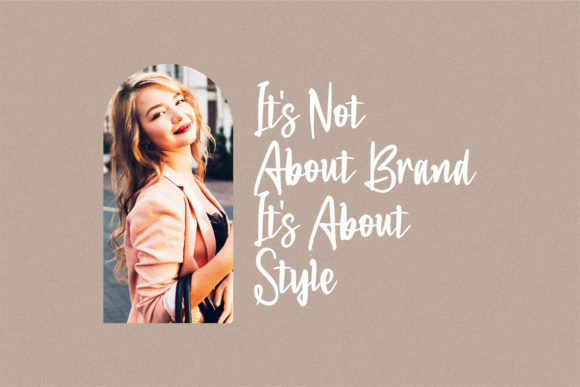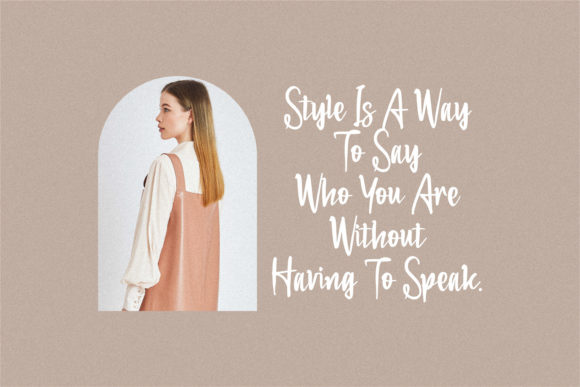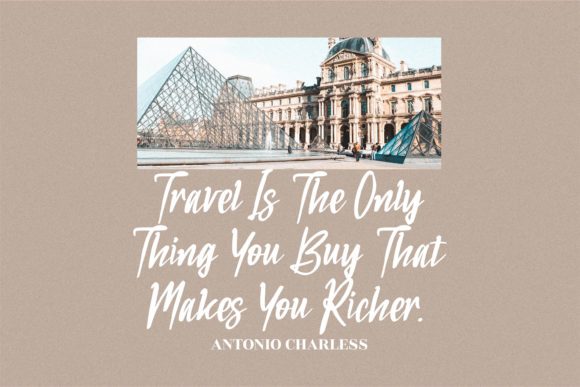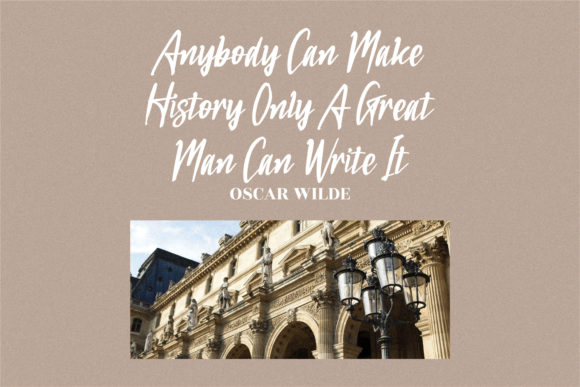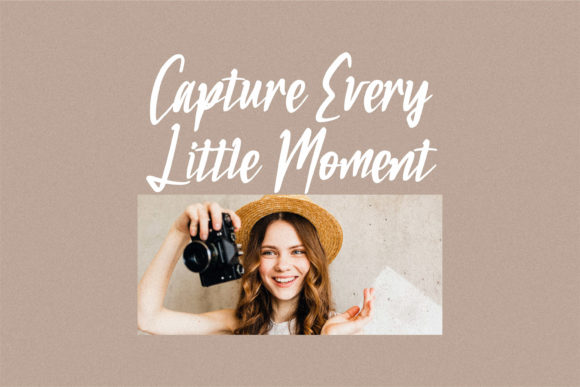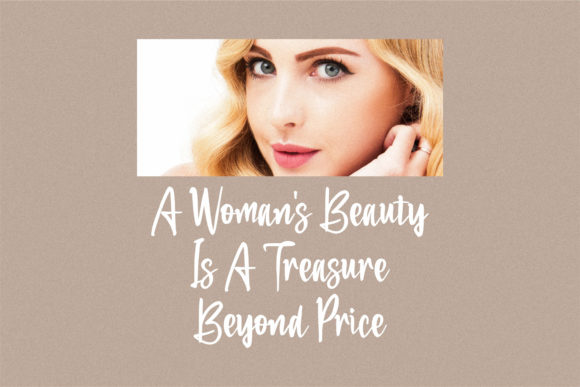
Introduction to Patrick Hinton Font
Patrick Hinton is an exquisite handwritten font, masterfully designed to become a true favorite.
It maintains its classy calligraphic influences while feeling contemporary and fresh This font is PUA encoded which means you can access all of the glyphs and swashes with ease.
Key Features of Patrick Hinton Font
Why Choose Patrick Hinton Font?
Patrick Hinton Font offers exceptional quality and versatility, making it a valuable addition to your design toolkit. Whether you’re creating for personal projects or commercial use, Patrick Hinton Font delivers professional results.